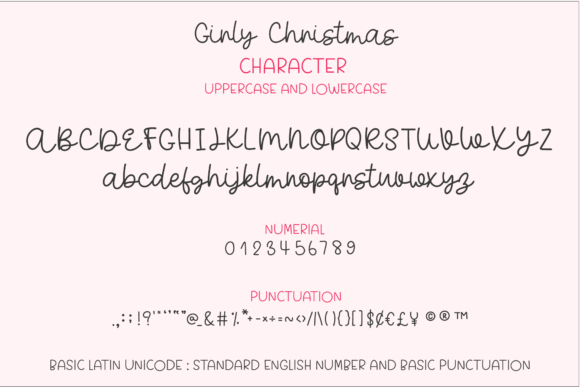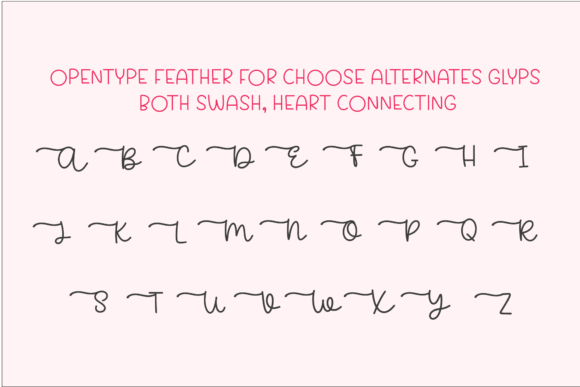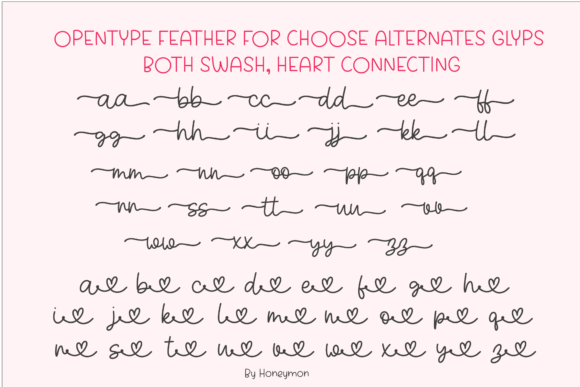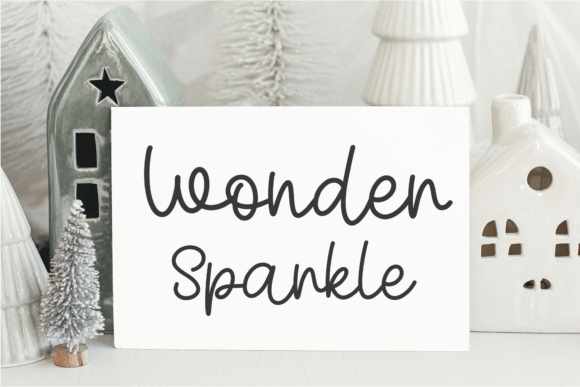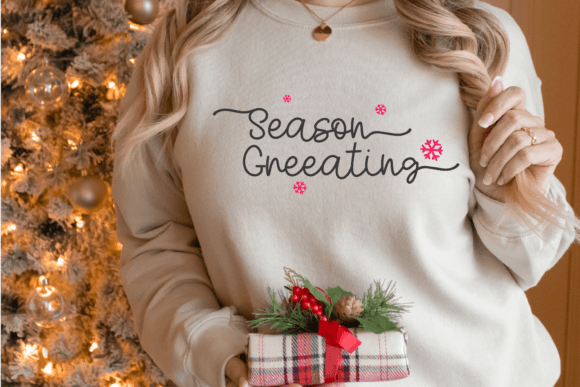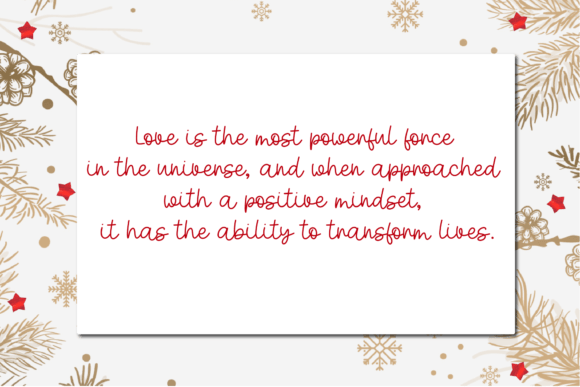
Introduction to Girly Christmas Font
Introducing the Girly Christmas Font with Connecting Hearts & Tails, a charming and versatile typeface perfect for all your holiday creations.
This unique font adds a festive touch to your Christmas cards, invitations, scrapbooks, and more Designed with delicate connecting hearts and elegant tails, this font is sure to make your projects stand out.
Key Features of Girly Christmas Font
Why Choose Girly Christmas Font?